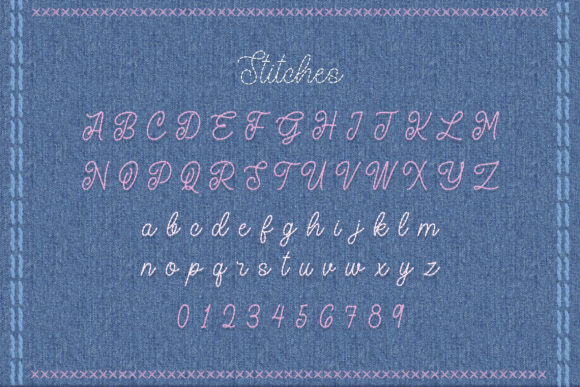
Stitches Font
Stitches is a delicate and stylish script font. It looks beautiful on a variety of designs requiring a personalized style, such as wedding invitations, thank you cards, weddings, greeting cards, logos and so on.